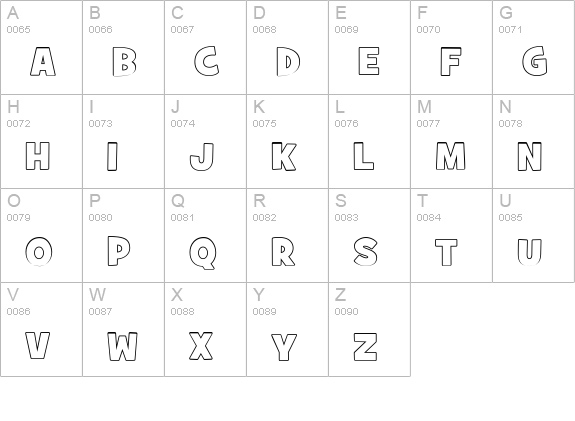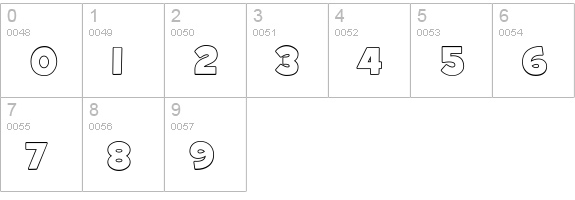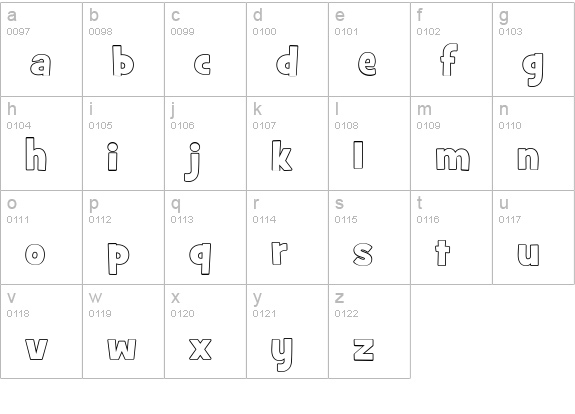
GrilledCheese BTN Out font is a versatile and modern typeface that is perfect for adding a touch of playfulness to your designs. With its unique outline style, this font exudes a sense of creativity and originality. Whether you are working on a poster, logo, or any other design project, GrilledCheese BTN Out font will surely make your text stand out. The best part is that this font is available for free download at FontsMarket.com. You can easily access this font and use it in your personal or commercial projects without any restrictions. Don't miss out on the opportunity to enhance your designs with the charming and energetic vibe of GrilledCheese BTN Out font. Download it now and let your creativity soar!